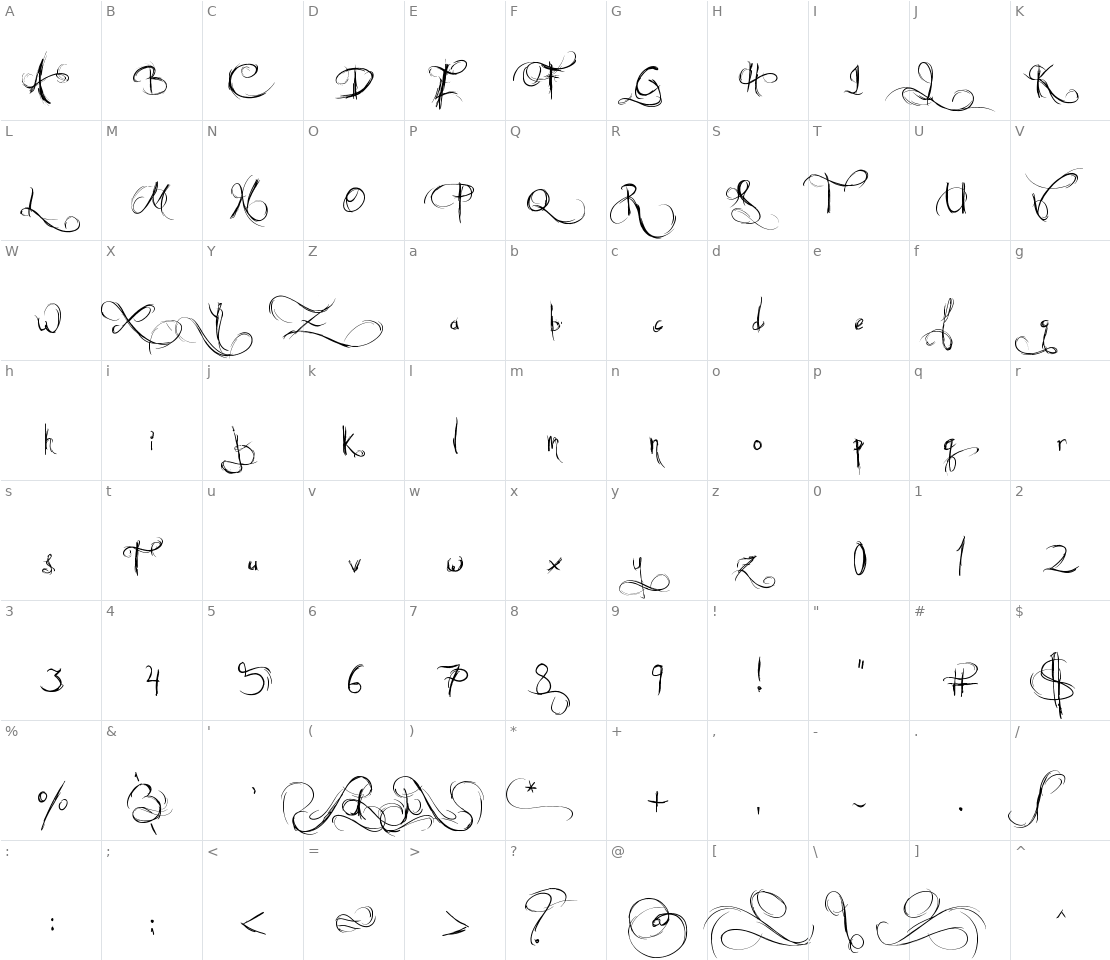
Jellyka Castle's Queen
Jellyka Castle's Queen is a handwritten script from Jellyka Nerevan with graceful flourishes and decorative swashes that give it a distinctly feminine, fairy-tale elegance. The letterforms feel personal and unhurried, with looping strokes that add real charm without becoming illegible. A natural choice for wedding invitations, greeting cards, and branding where warmth and whimsy need to coexist.